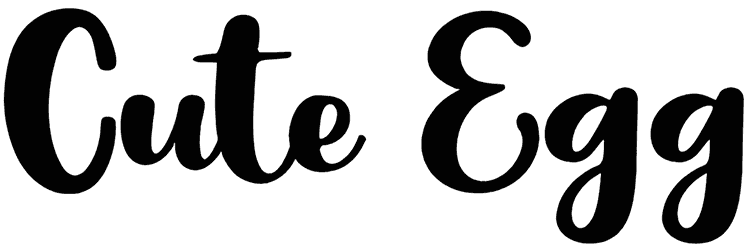
Cute Egg Font
This suggestion will make you excited cause it can add a fun flavor to your project with this script font, Cute Egg. This font with gorgeous hand-made curves conveys the feeling of vitality and fun. As a versatile font,…
This suggestion will make you excited cause it can add a fun flavor to your project with this script font, Cute Egg. This font with gorgeous hand-made curves conveys the feeling of vitality and fun. As a versatile font, Cute Egg can promote your designs, such as posters, handwritten quotes, magazines, apparel, and much more, based on your taste.